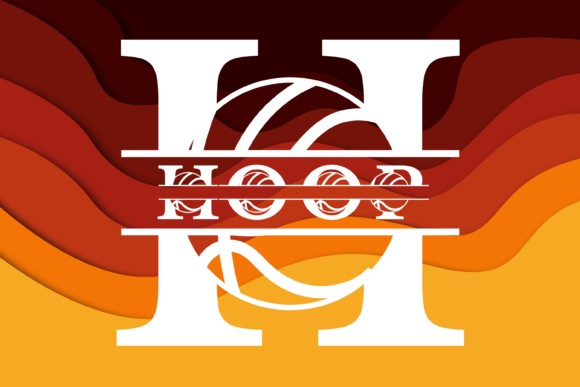
Unleash your creativity and let your designs soar with the Hoop Font – the ultimate choice for sports enthusiasts and design aficionados. This decorative font family, meticulously crafted by WADLEN, embodies the spirit of athleticism, transforming your Cricut creations into masterpieces that resonate with energy and dynamism.
Embark on a design journey like no other, where your ideas take center stage and leave a lasting impression. Hoop Font's carefully designed characters dance across your projects with effortless grace, adding a touch of elegance and sophistication to every stroke. Prepare to captivate your audience with visuals that ignite passion and leave them in awe.
With Hoop Font, the possibilities are limitless. Craft dazzling logos that embody the essence of your favorite sports, creating a visual symphony that celebrates athleticism and teamwork. Design eye-catching posters that capture the thrill of the game, inviting viewers to experience the adrenaline-fueled excitement. Unleash your inner artist and create personalized jerseys, t-shirts, and accessories that showcase your unwavering support for your favorite teams.
Hoop Font's versatility extends beyond sports-related designs. Its captivating nature lends itself to a myriad of creative endeavors. Whether you're designing invitations for special events, creating personalized greeting cards, or crafting mesmerizing social media posts, Hoop Font adds a touch of charm and uniqueness that sets your designs apart.
Experience the transformative power of Hoop Font and witness how it elevates your designs to unprecedented heights. Its user-friendly nature makes it accessible to both seasoned designers and those just starting their creative journey. Embrace the endless possibilities, let your imagination run wild, and create designs that resonate with passion, energy, and unwavering spirit.